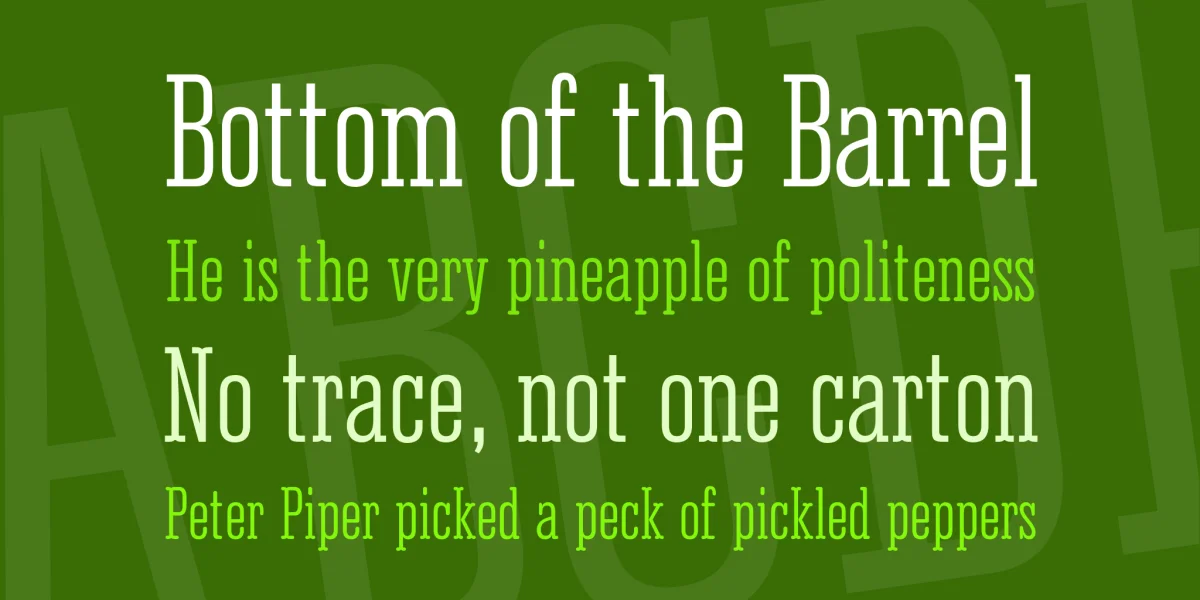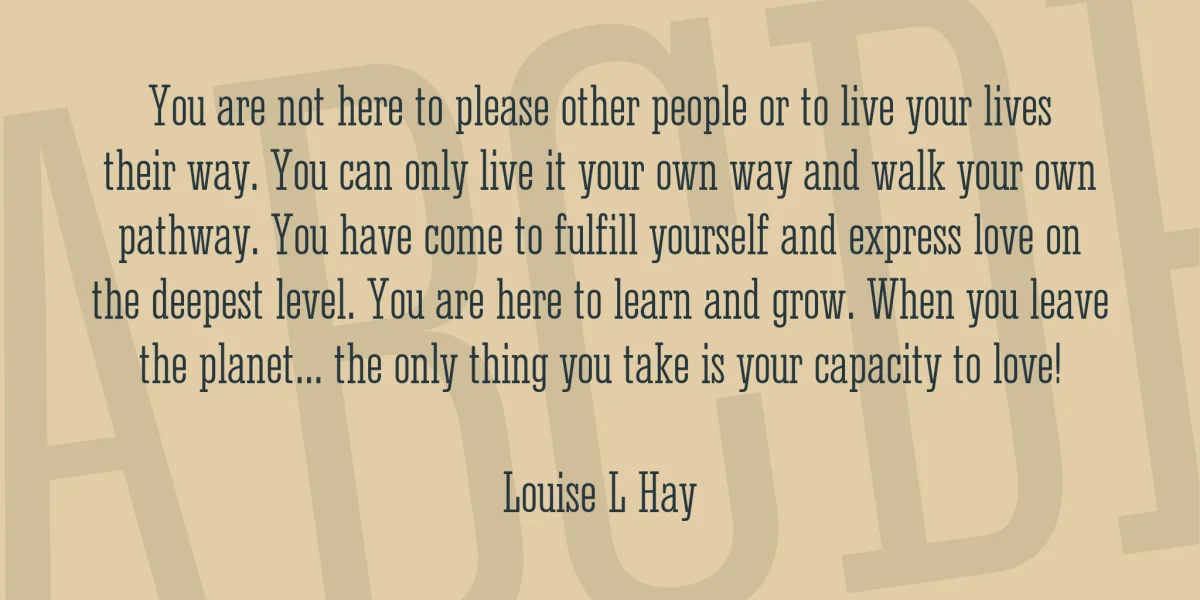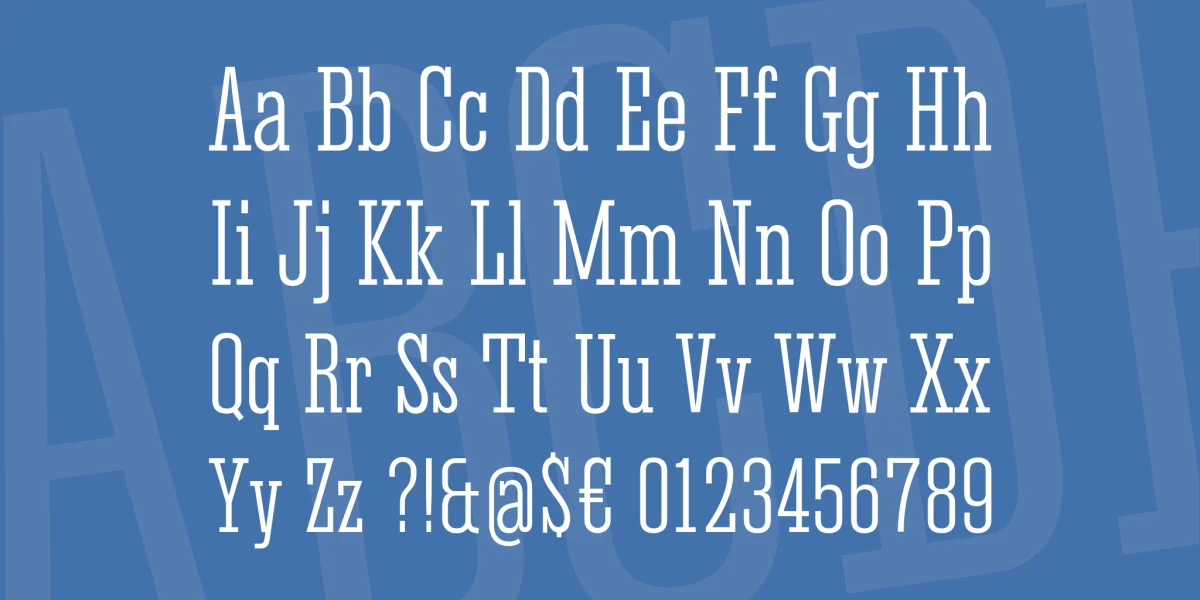
One year ago we published Corki as a Christmas gift for you. Now we present you Corki v2.
The main difference is that we added lowercase to all of the 4 styles. There are a few fixes and improvements like the ‘K’ character, the numerals, as well as the thickness of the serifs.
The letters “Ы” and “Э” plus their lowercase were added due to a popular demand from the Russian users.